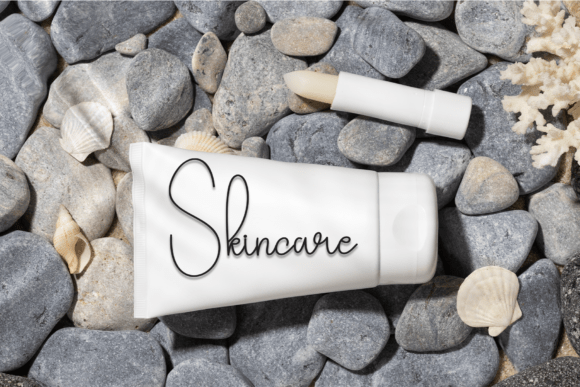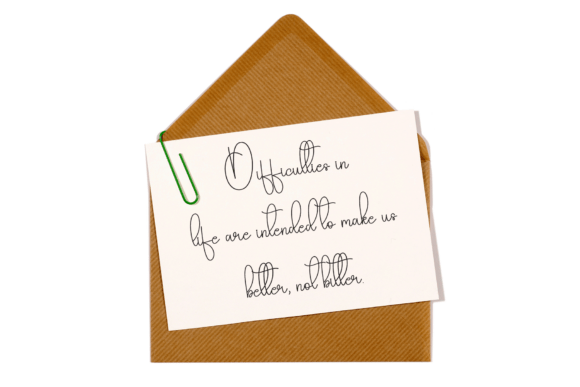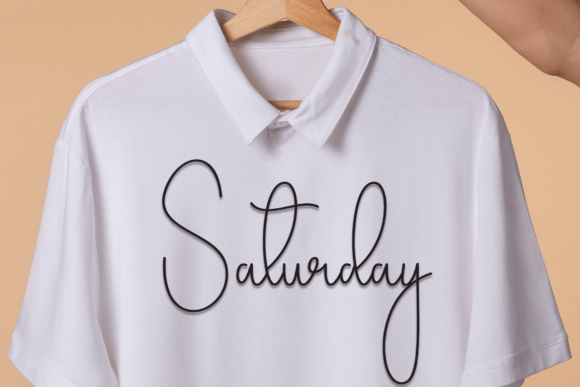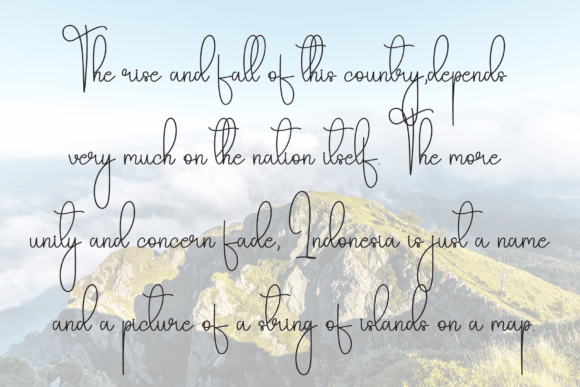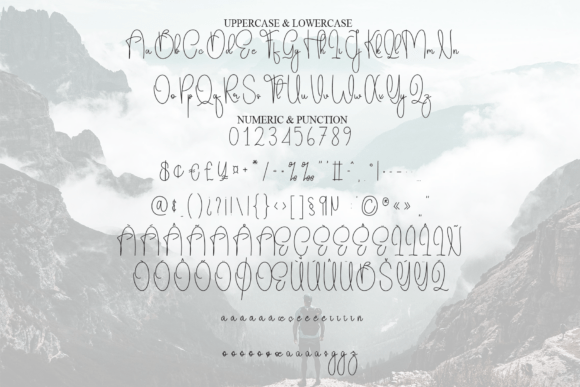
The Perfect Font for Your Next Adventure
Have you ever stared at a blank page, trying to conjure up the perfect font to match your creative vision? We’ve all been there. The search for the perfect typeface can be a daunting task, but what if I told you that the perfect font is just a click away? Enter the Adventure Font, a stylish handwritten script font that’s about to revolutionize your design game.
This charming font is designed to bring a personal touch to any design project, from logos to packaging and invitations. Its fluid strokes and elegant curves will add a warm and sophisticated feel to your work, making it truly unforgettable. Whether you’re a seasoned designer or just starting out, the Adventure Font is an invaluable tool in your creative arsenal.
Key Features of Adventure Font
- Unique Characteristics: The Adventure Font features a unique, hand-drawn style with intricate details and flourishes, giving it a distinctive and eye-catching appearance.
- Language Support: The font supports a wide range of languages, including Latin, Cyrillic, and Greek scripts, making it a versatile choice for designers working on international projects.
- Font Metrics: The font’s metrics are carefully crafted to ensure optimal readability and legibility, with features such as large x-heights, open apertures, and well-spaced characters.
Review of Adventure Font
I recently had the chance to work with the Adventure Font, and I have to say, it’s a unique and attention-grabbing typeface. ✨ One of the things that works well is its playful and adventurous vibe, which is perfect for projects that require a sense of excitement and energy. The font’s bold and confident lines are also great for making a statement, whether it’s in a headline or a title.
Another thing that I appreciate about the Adventure Font is its versatility. It comes in a range of weights and styles, from light and elegant to bold and dramatic. ✨ This makes it easy to use in a variety of contexts, from digital design to print materials.
- ⚠️ The font may be too bold or overwhelming for certain types of content, such as small text or intricate designs.
- ⚠️ Some of the characters may not be perfectly kerned or spaced, which can affect the overall legibility of the text.
Overall, I think the Adventure Font is a great choice for designers who want to add some excitement and energy to their projects. While it may have some limitations, its unique style and versatility make it a valuable addition to any design toolkit.
Adventure Font is perfect for:
- Outdoor and adventure-themed designs
- Travel and tourism branding
- Wildlife and nature-inspired graphics